Toxic Font
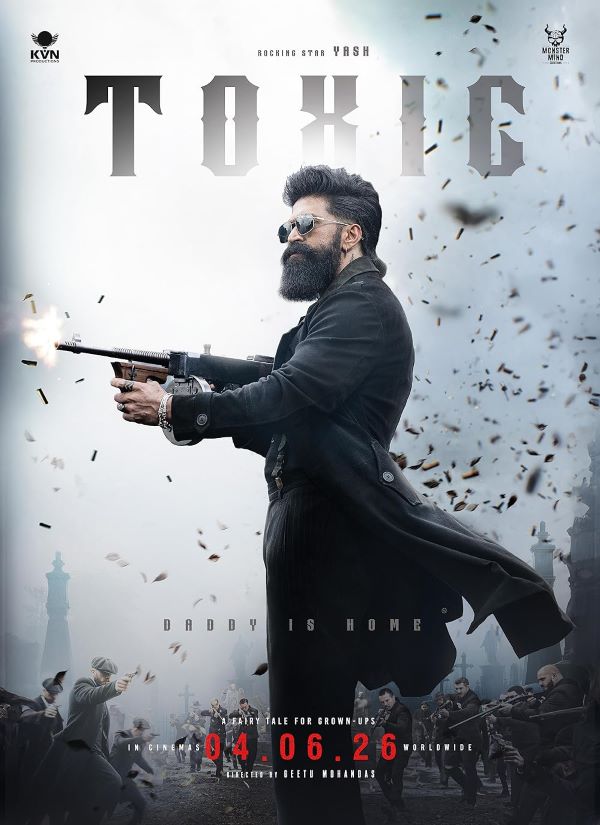
Toxic font is the bold display font used in the title treatment of the 2026 Indian film Toxic, starring Yash, Nayanthara, and Kiara Advani. While the original title lettering appears to be a custom-designed typeface built specifically for the film’s identity, the closest alternative is Quorthon Dark V by Paulo Goode — a bold, angular blackletter font with sharp gothic edges and a dramatic, heavily stylized character that captures the same dark, menacing energy of the film’s visual branding.